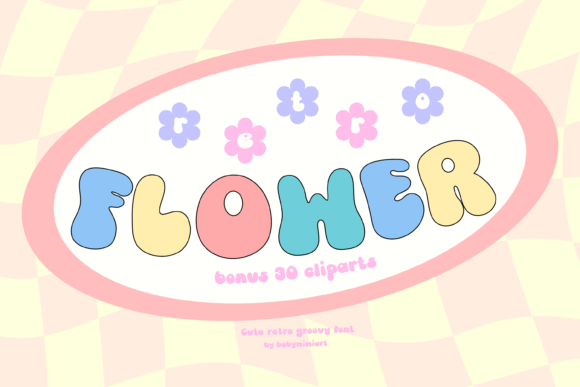
In a world teeming with pallid, monotonous fonts, Retro Flower Font emerges as a vibrant tapestry of nostalgia and whimsy. Picture a font imbued with the charm of yesteryear, adorned with delicate petals and blooming buds that evoke memories of carefree summers and sun-kissed meadows.
Retro Flower Font belongs to the distinguished family of display fonts, a captivating genre renowned for its ability to command attention and spark emotions. Each letter, meticulously crafted with love and precision, radiates a unique personality, reflecting the playful innocence of childhood and the timeless elegance of vintage design.
Slip into a bygone era of charm and simplicity with Retro Flower Font. Let your imagination run wild as you create logos that exude a sense of nostalgia, greeting cards that warm the heart, and posters that transport the viewer to a realm of enchantment. Unleash your creativity and design t-shirts that capture the vibrant spirit of childhood, adorned with whimsical flowers that bloom with joy.
But that's not all! As a delightful bonus, you'll receive an exquisite collection of 30 retro flowers in PNG and SVG formats. These vibrant, hand-drawn blooms are perfect for adding a touch of retro flair to your designs, whether you're creating website graphics, social media posts, or eye-catching marketing materials.
Join the ranks of discerning designers who have succumbed to the charm of Retro Flower Font. Its versatility knows no bounds, making it the perfect choice for a wide range of projects, from whimsical invitations to captivating branding designs.